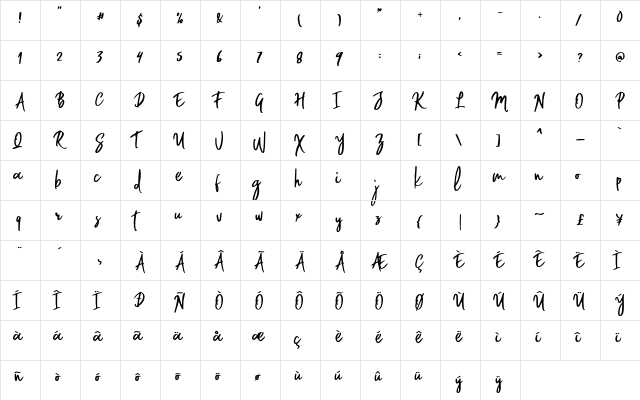
Willford Brush Regular
| Foundry | Ferdiansyah_ijemrockart |
| Designer | Ferdiansyah_ijemrockart |
Design Context for Willford Brush Typeface
Willford Brush brings a calligraphic fluidity to the page — its connecting strokes and expressive curves give it an unmistakably human quality.
Font Pairing: Combine Willford Brush with a simple geometric sans for maximum contrast — the tension between flowing curves and clean structure is a classic typographic pairing.
Pro Tip: Use Willford Brush for short runs of text — names, titles, or taglines. Extended body copy in script faces tires the eye quickly.